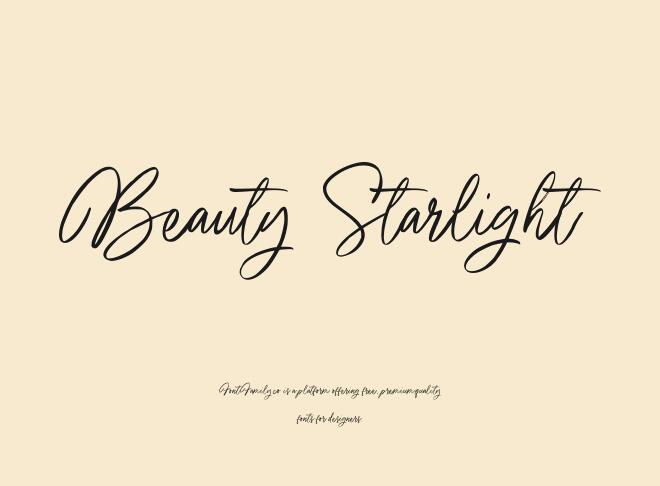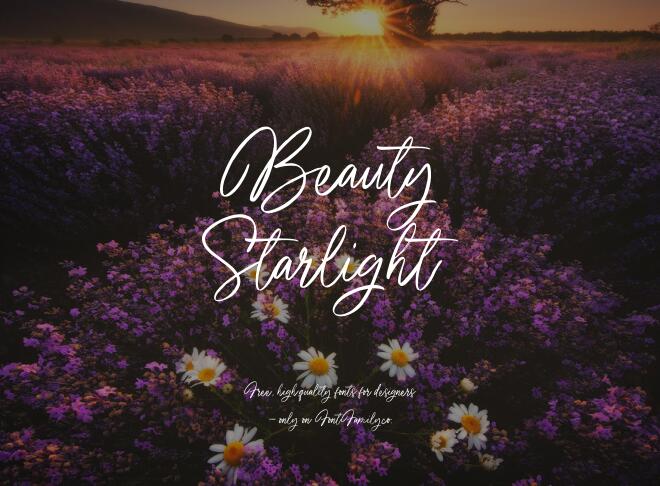
Beauty Starlight Font
Beauty Starlight Font is an exquisite handwritten script typeface, designed by Creative Tacos. This font embodies elegance and sophistication, making it perfect for high-end branding and design projects. Its unique style is characterized by smooth curves and flowing letterforms, reminiscent of traditional calligraphy, yet with a modern twist. Beauty Starlight Font excels in contexts such as logo design, wedding invitations, or any project that requires a touch of elegance and personal touch. Its distinctive style sets it apart from common script fonts, offering a unique aesthetic that's both appealing and effective in creating a lasting impression. The font’s versatility makes it a valuable addition to any designer's toolkit. Its free for personal use license also makes it an affordable choice for individual projects.